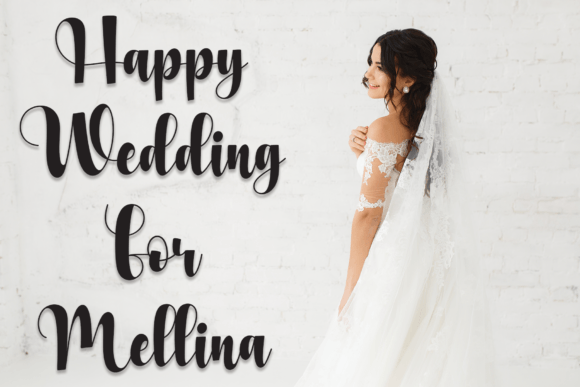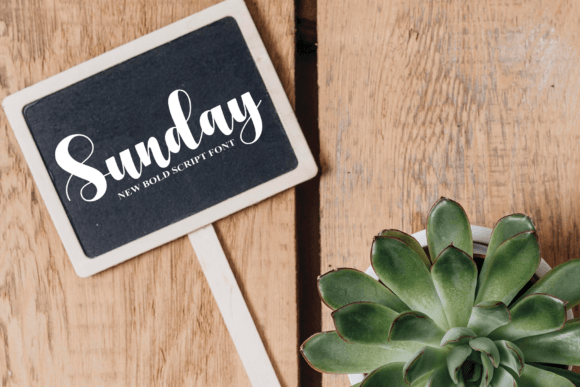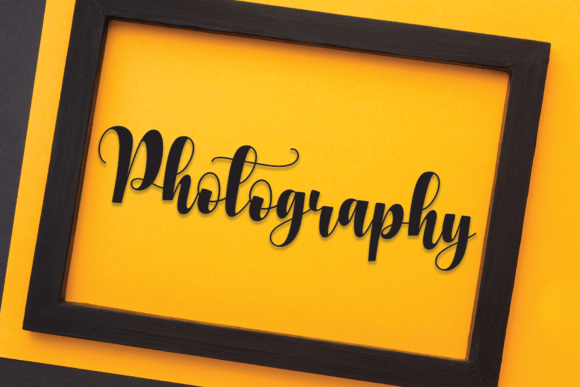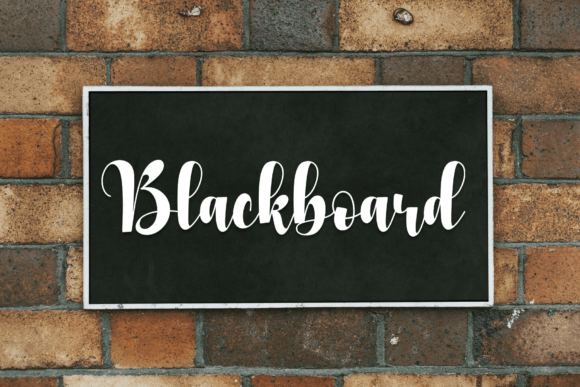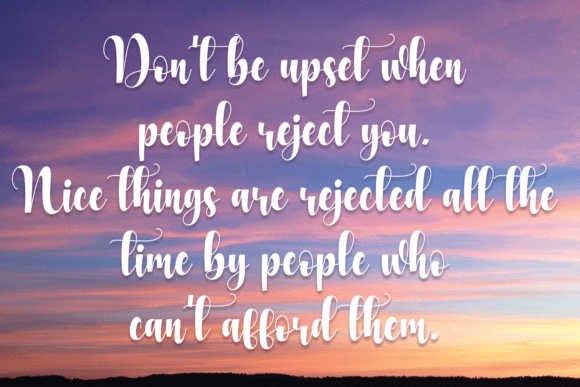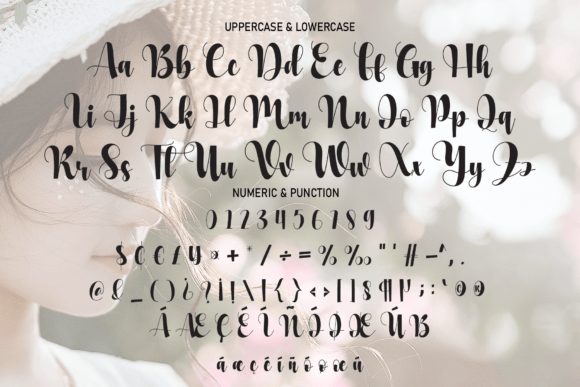
Introducing Anika Font: The Exquisite Handwritten Font for Your Creative Projects
Are you a designer, crafter, or creative enthusiast looking for a font that can elevate your projects to new heights? Look no further than Anika Font, a stunning handwritten font that is sure to capture your heart. With its classy calligraphic influences and contemporary feel, Anika is the perfect choice for anyone seeking a sophisticated and fresh font for their creative endeavors.
The Story Behind Anika Font
Anika Font is a masterpiece of modern typography, carefully crafted to provide a unique and elegant writing experience. Its creator, a talented designer with a passion for calligraphy, has poured their heart and soul into developing a font that is both beautiful and functional. The result is a font that is not only aesthetically pleasing but also highly versatile, making it suitable for a wide range of applications.
Key Features of Anika Font
- Classy Calligraphic Influences: Anika Font boasts elegant calligraphic flourishes that add a touch of sophistication to any project.
- Contemporary and Fresh: Despite its classic influences, Anika has a modern feel that makes it perfect for contemporary designs.
- Handwritten Charm: Anika’s handwritten nature gives it a personal and approachable feel, making it ideal for projects that require a human touch.
- Highly Versatile: Anika can be used for a wide range of applications, from branding and advertising to packaging and digital media.
Why Choose Anika Font?
So, why should you choose Anika Font for your creative projects? Here are just a few compelling reasons:
- Stand Out from the Crowd: With Anika, you can create unique and eye-catching designs that set you apart from the competition.
- Elegance and Sophistication: Anika’s classy calligraphic influences add a level of elegance and sophistication to any project.
- Easy to Read and Write: Anika’s clear and flowing script makes it easy to read and write, ensuring that your message is communicated effectively.
- Perfect for Branding and Identity: Anika’s unique and memorable style makes it an excellent choice for branding and identity projects.
How to Use Anika Font in Your Projects
Using Anika Font in your projects is easy and straightforward. Here are a few tips to get you started:
- Pair it with Other Fonts: Anika pairs well with a variety of fonts, so feel free to experiment with different combinations to find the perfect look for your project.
- Use it for Headings and Titles: Anika’s elegant script makes it perfect for headings and titles, adding a touch of sophistication to any design.
- Add it to Your Digital Toolbox: With Anika, you can create stunning digital content, from social media graphics to website headers.
In conclusion, Anika Font is a truly exquisite handwritten font that is sure to become a favorite among designers, crafters, and creative enthusiasts. With its classy calligraphic influences, contemporary feel, and highly versatile nature, Anika is the perfect choice for anyone seeking to elevate their projects to new heights. So why wait? Fall in love with Anika and bring your creative vision to life!